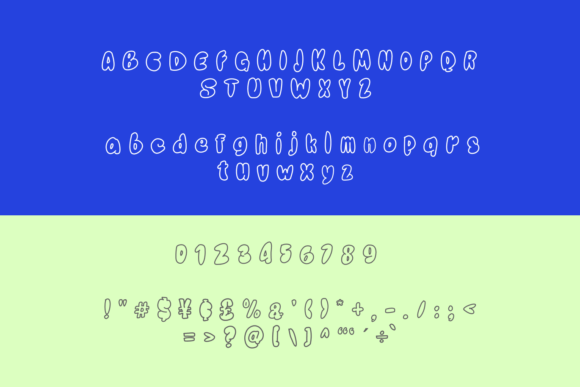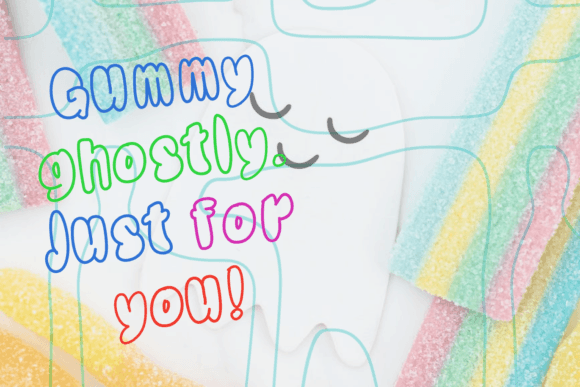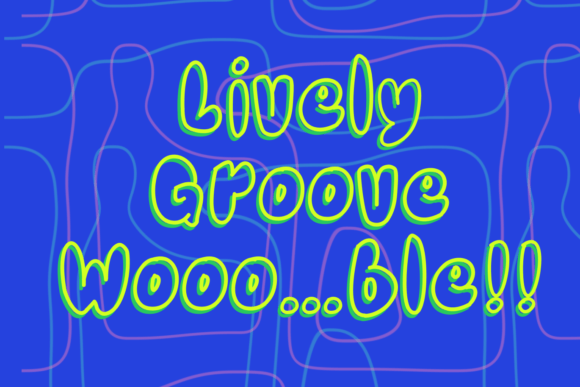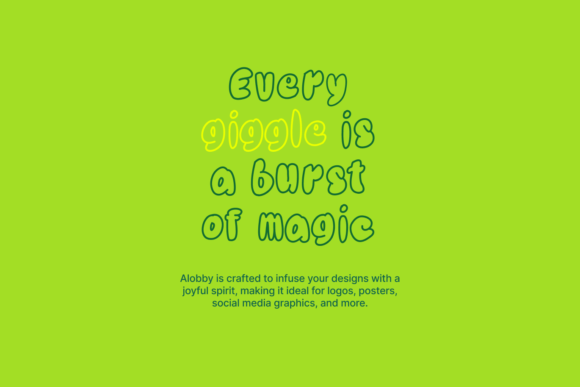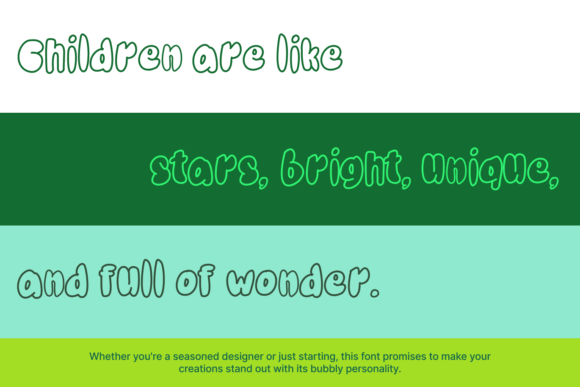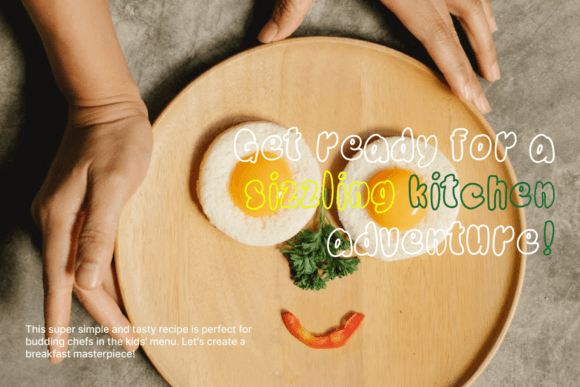
Introducing Alobby Font: The Hand-Drawn Bubble Font That’s Full of Energy and Charm
Are you tired of using the same old fonts in your creative projects? Look no further than Alobby Font, a hand-drawn bubble font that’s bursting with energy and charm. With its unique and playful design, Alobby is the perfect addition to any project that needs a little extra personality.
What is Alobby Font?
Alobby Font is a hand-drawn bubble font that’s been carefully crafted to bring a touch of whimsy and fun to your designs. Each letter is carefully drawn with a personal touch, giving the font a unique and charming feel that’s sure to capture the attention of your audience. Whether you’re working on a graphic design project, crafting a handmade card, or creating a digital illustration, Alobby Font is the perfect choice.
Key Features of Alobby Font
- Hand-drawn design: Each letter in Alobby Font is carefully hand-drawn, giving the font a personal and unique touch.
- Bubble font style: The font features a fun and playful bubble style that’s perfect for adding a touch of whimsy to your designs.
- Full of energy and charm: Alobby Font is designed to bring a burst of energy and charm to your projects, making it perfect for creative and playful designs.
Why Use Alobby Font?
So why should you choose Alobby Font for your next project? Here are just a few reasons why:
- Add personality to your designs: Alobby Font is the perfect way to add a touch of personality to your designs and make them stand out from the crowd.
- Create engaging and playful designs: The font’s playful and energetic design makes it perfect for creating engaging and playful designs that capture the attention of your audience.
- Perfect for creative projects: Alobby Font is ideal for creative projects such as graphic design, illustration, and crafting.
- Easy to pair with other fonts: Alobby Font pairs well with a variety of other fonts, making it easy to use in combination with other typography.
Alobby Font is a hand-drawn bubble font that’s full of energy and charm. With its unique and playful design, it’s the perfect addition to any creative project. Whether you’re a designer, crafter, or DIY enthusiast, Alobby Font is sure to bring a touch of personality and whimsy to your designs. So why not give it a try and see the amazing results for yourself?